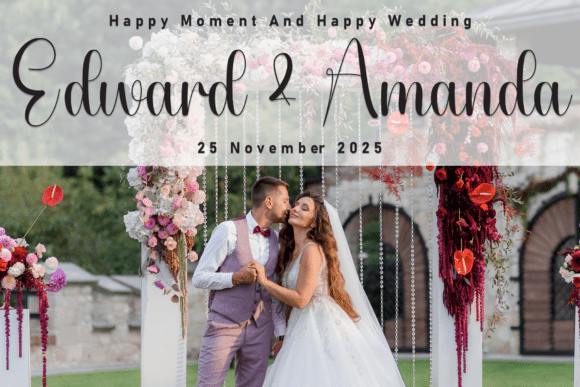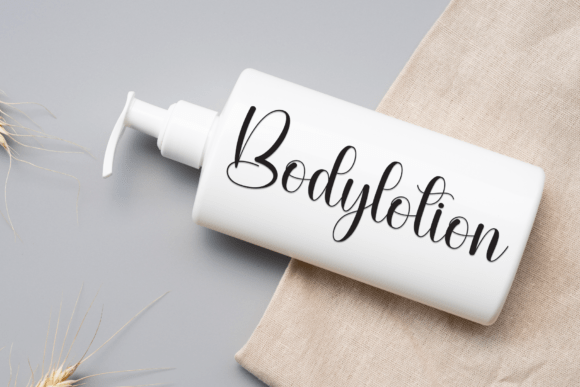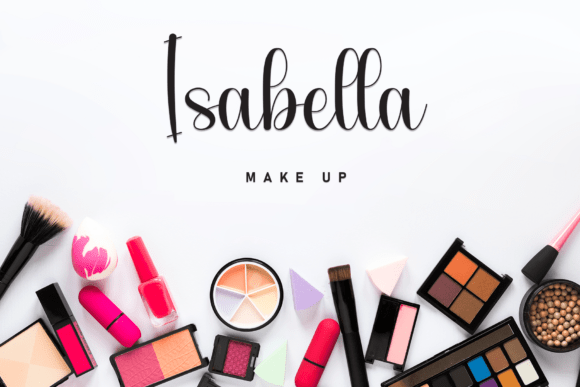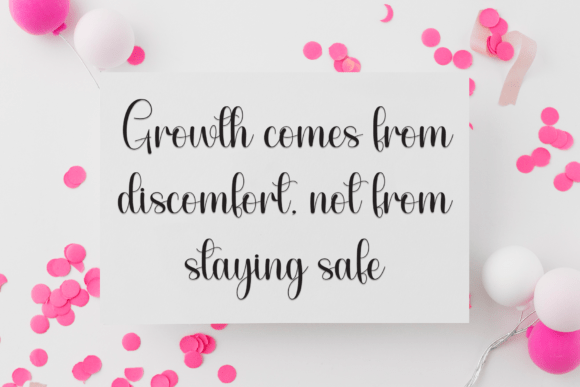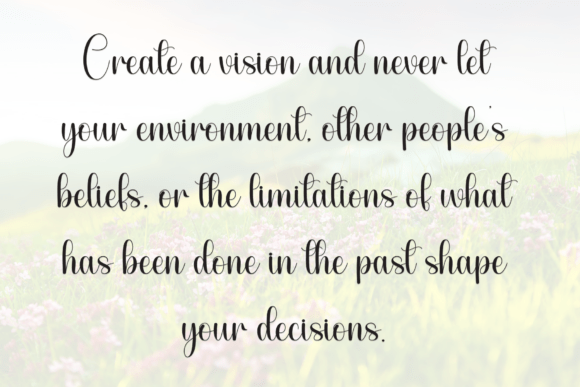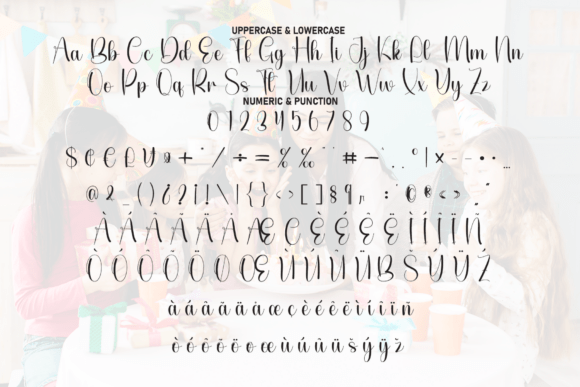
The Birth of Brithday: A Font that Brings Elegance and Playfulness
I still remember the design moment that led me to discover the Brithday font. I was working on a wedding invitation project, and my client had a very specific vision: elegant, yet playful, with a touch of whimsy. I had been searching for the perfect font for hours, but nothing seemed to fit the bill. That’s when I stumbled upon Brithday, and it was love at first sight! 💕
A Personal Review of Brithday
- ✨ Elegant and refined, yet approachable and friendly
- ✅ Flowing curves and natural rhythm that add a personal touch to any project
- 💫 Perfect for invitations, branding, and social media content
- 🎨 Highly versatile and adaptable to different design styles
While Brithday is an amazing font, there are a few things to keep in mind: 🤔
- ⚠️ Some characters may not work well in very small font sizes
- ⚠️ Limited language support, so double-check the character set before use
The Story Behind Brithday
Brithday was designed with the intention of capturing the essence of celebration and joy. The designer aimed to create a font that would bring a touch of elegance and playfulness to any project, from wedding invitations to social media graphics. With its flowing curves and natural rhythm, Brithday is the perfect choice for anyone looking to add a personal, charming touch to their designs.
Q: What type of projects is Brithday best suited for?
A: Brithday is perfect for invitations, branding, social media content, and any project that requires a touch of elegance and playfulness.
Q: Is Brithday a difficult font to read?
A: No, Brithday is designed to be elegant and refined, yet still easy to read. However, it’s best used at larger font sizes to ensure optimal legibility.